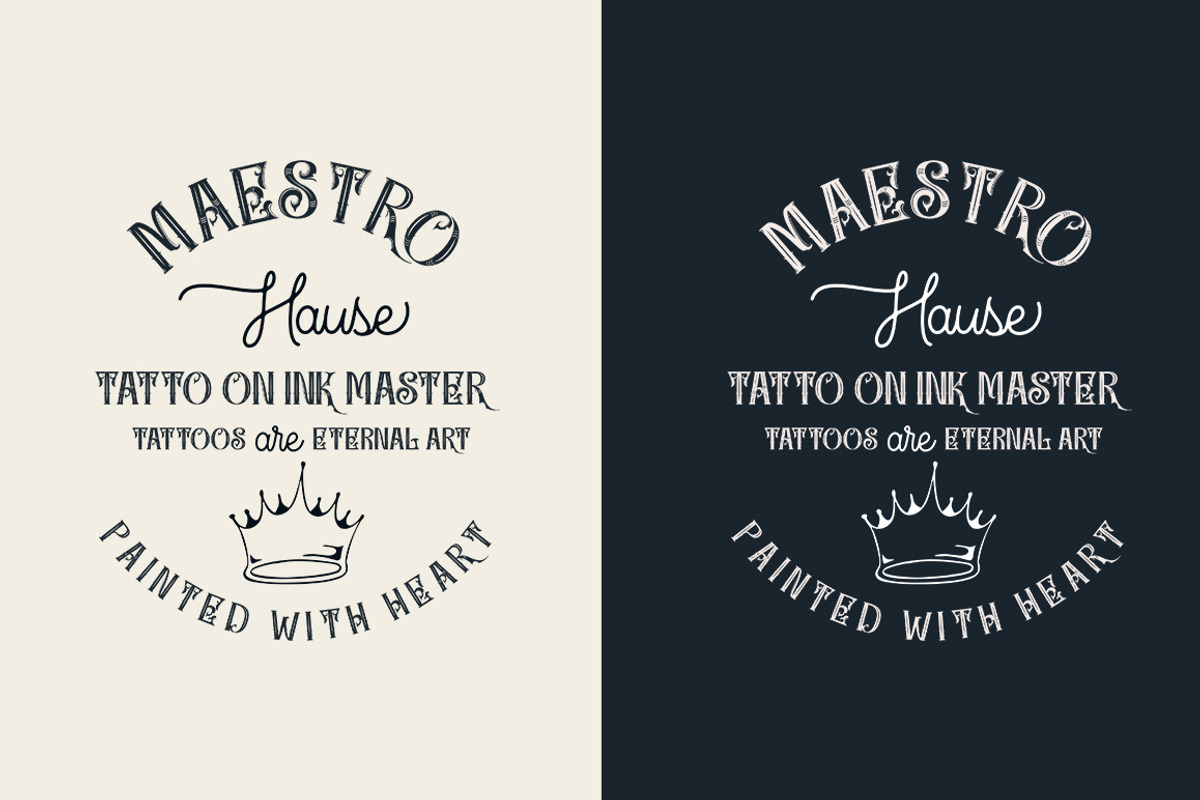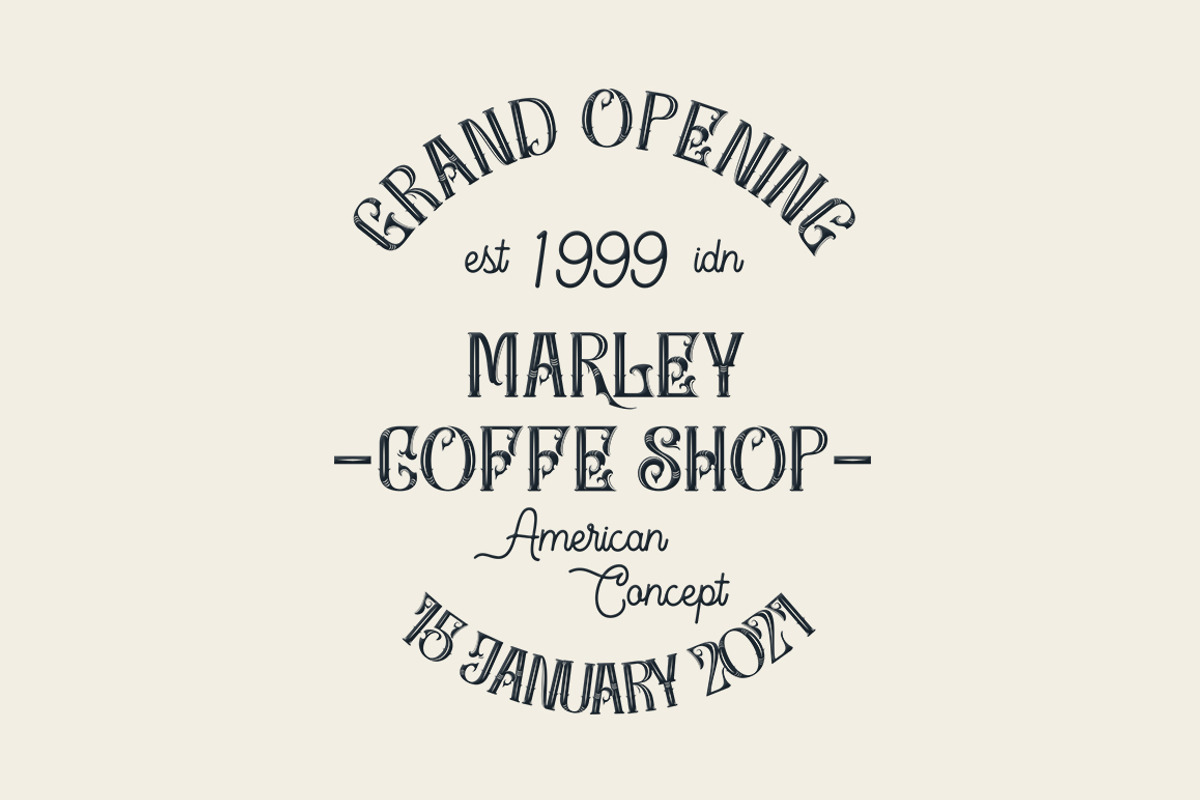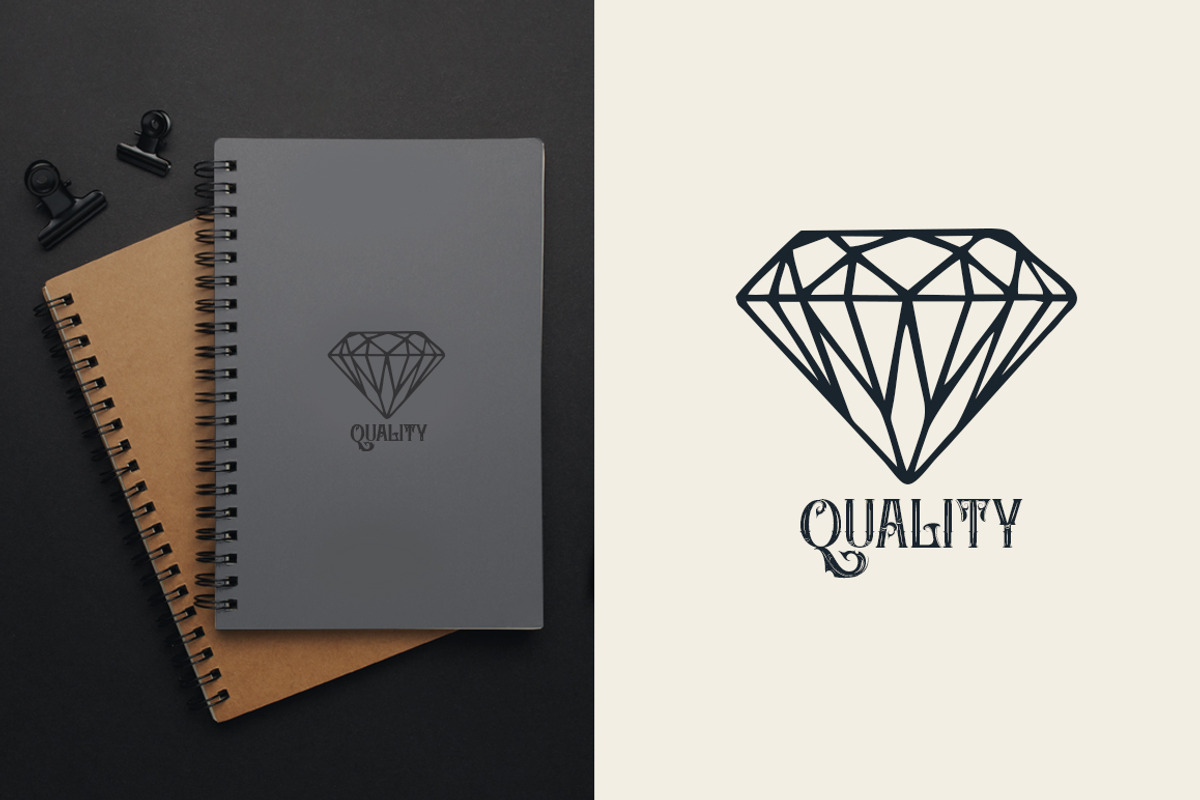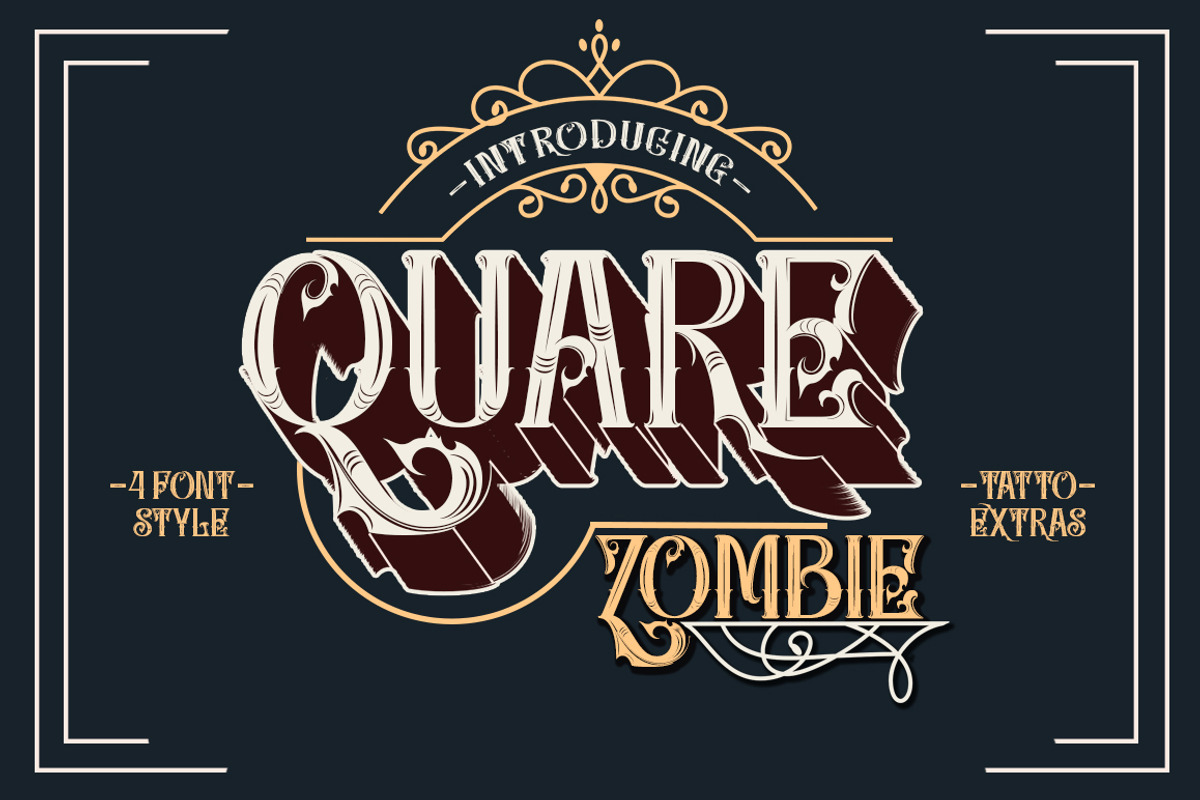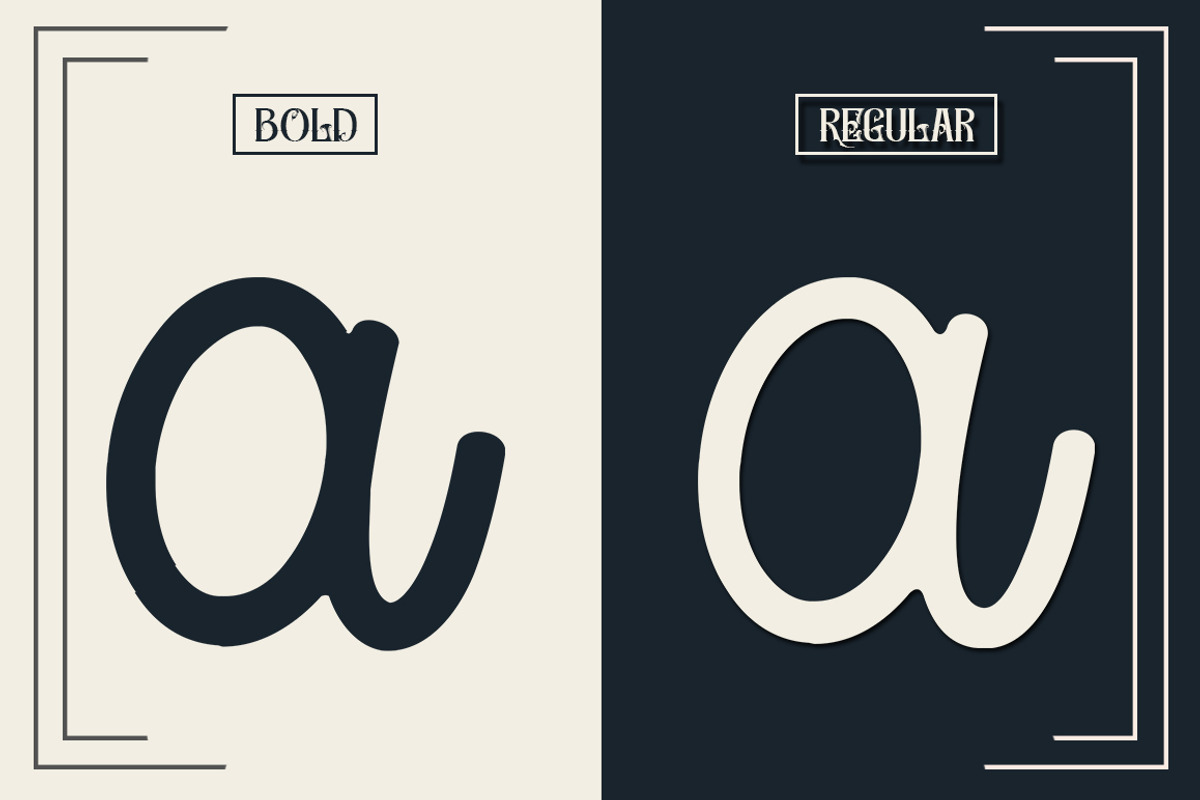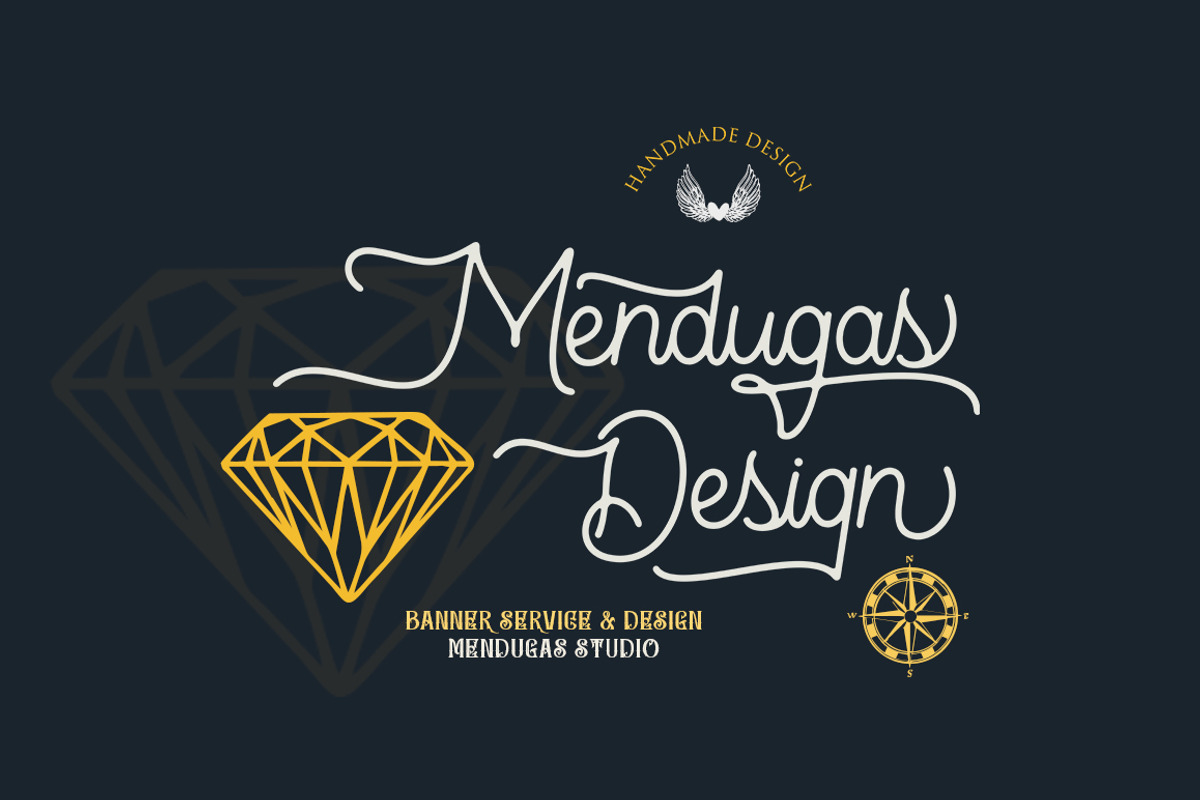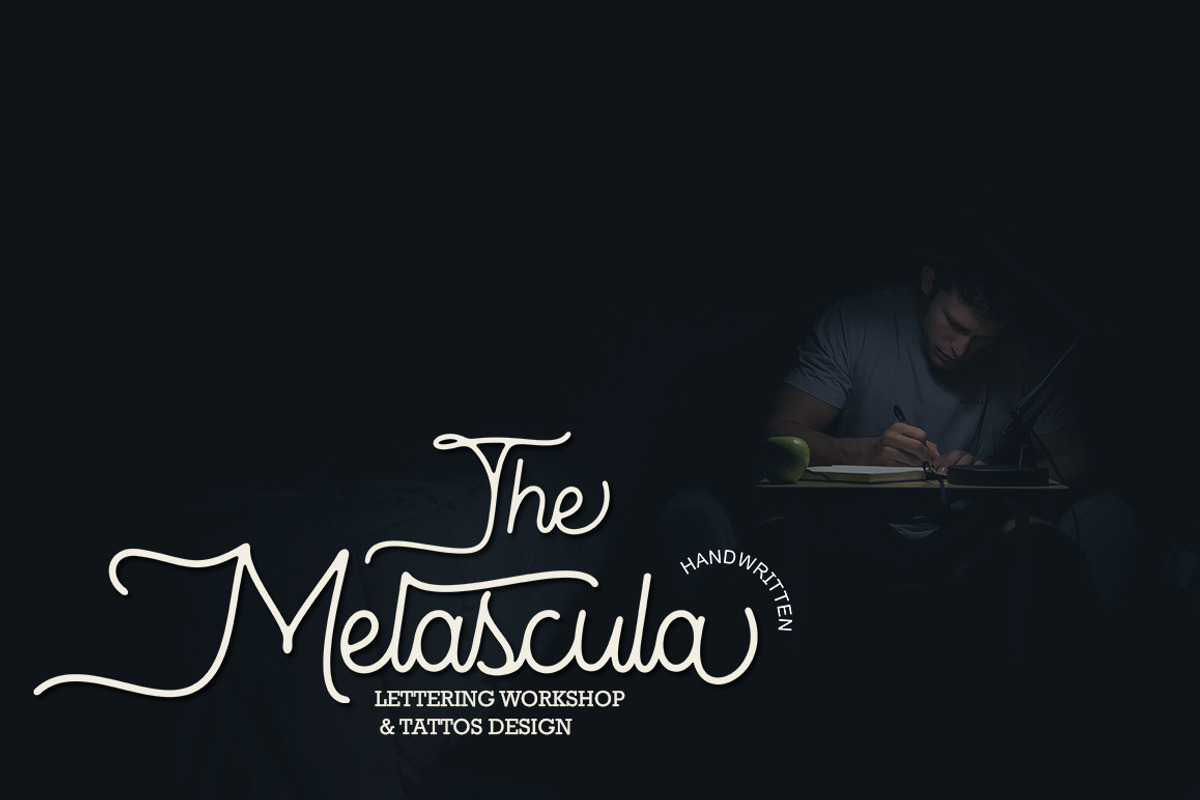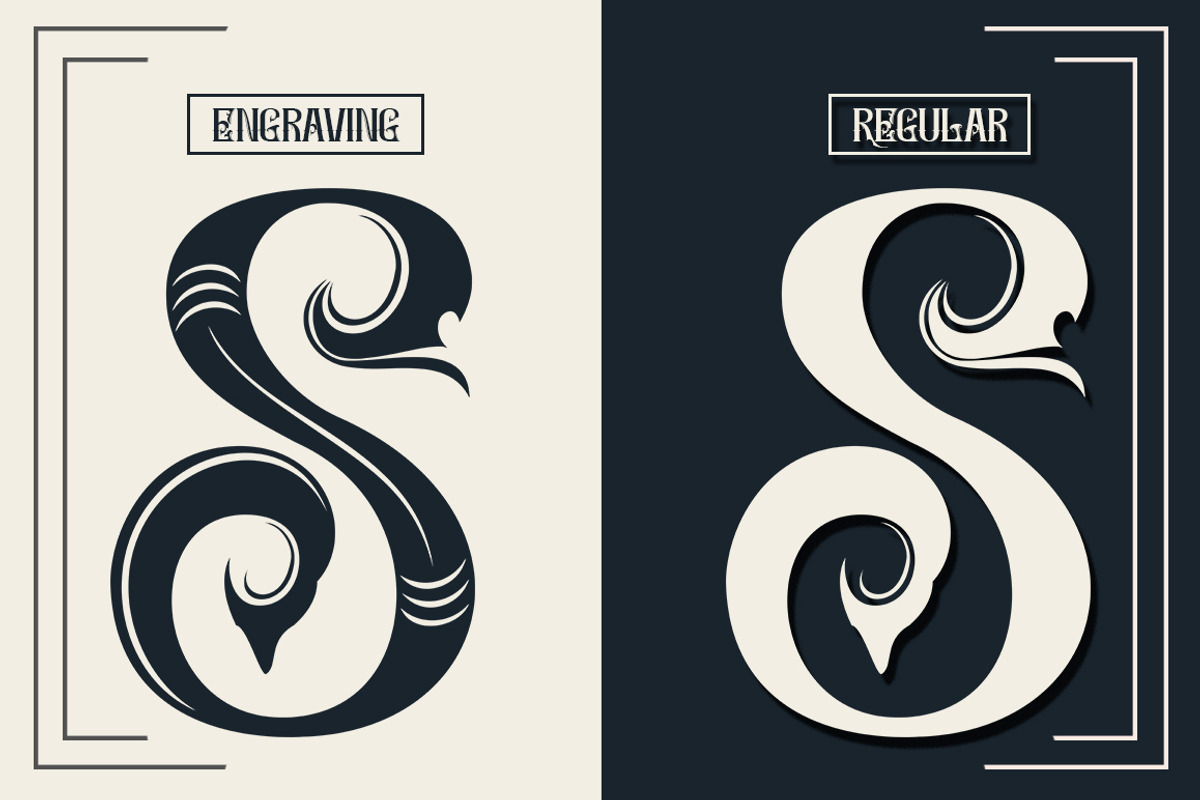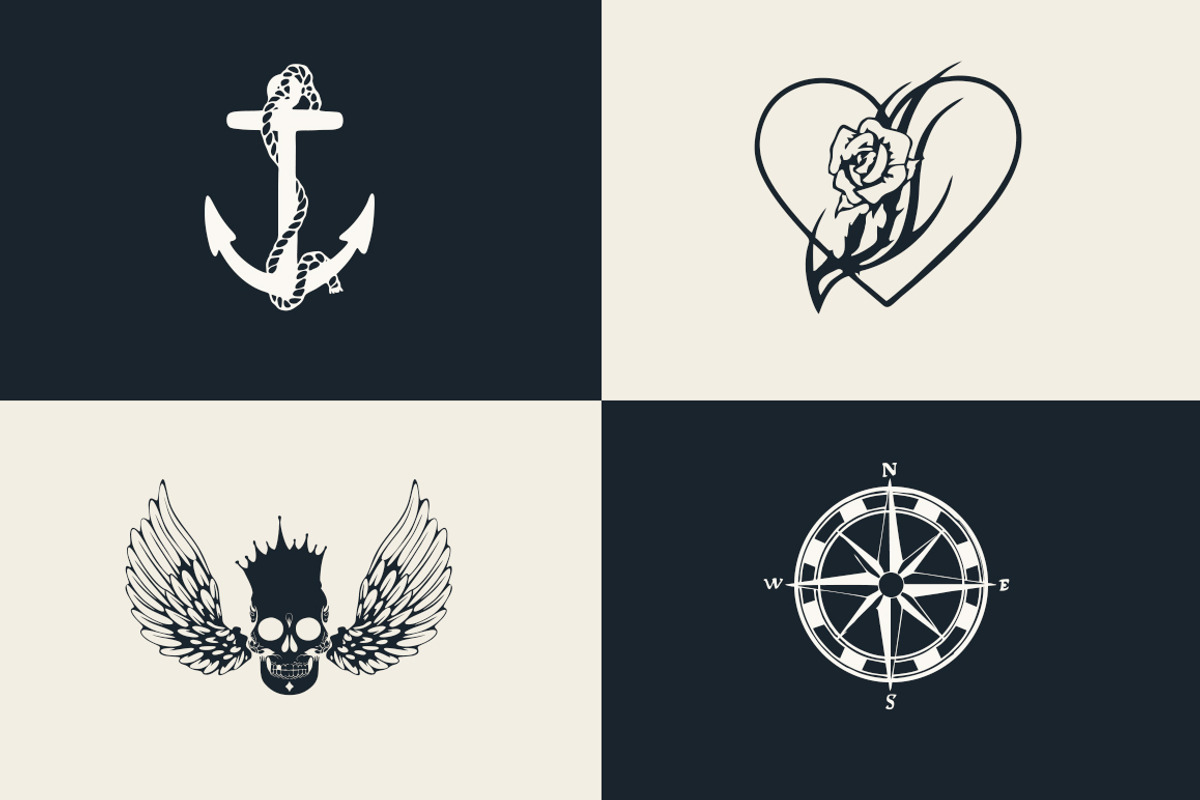
Quare Zombie - 4 font plus extras
Quare Zombie is an old typeface, comes in a clean and elegant style. There are 5 files in this font such as: Regular and Engraving with tattoo additions and Monoline Fonts. Quare Zombie is great for all types of looks from branding, emblems, advertisements, t-shirts, etc.